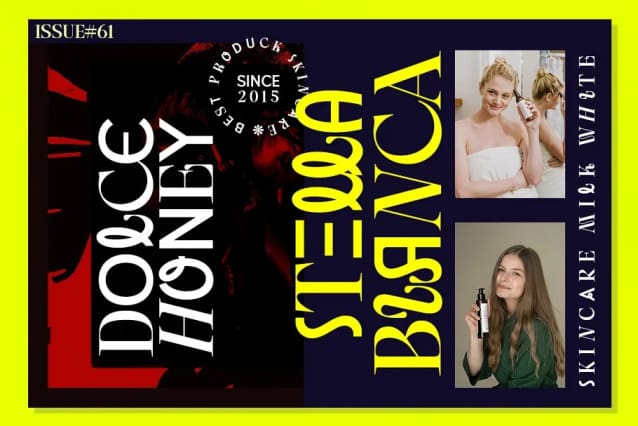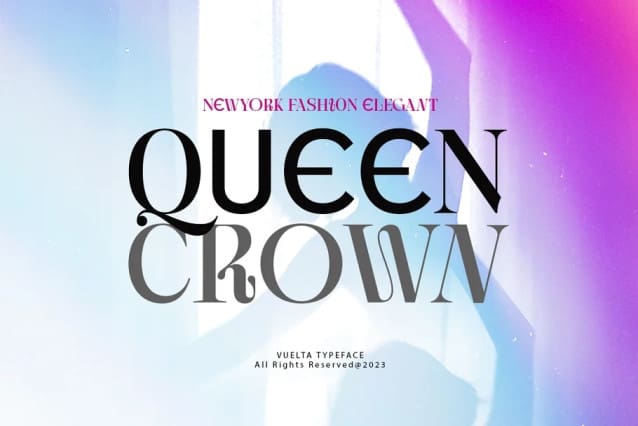
Vuelta Display Font
Vuelta Display Font is a modern random style font that combines serifs and sans in one font file. With serif as uppercase and sans as lowercase. You can use both uppercase and lowercase in the same word which will make your text more distinct too plus some alternatives so this font really stands out. This font perfectly made to be applied especially in logo, and the other various formal forms such as display, header, headline, poster, logos, or etc on a big typography.